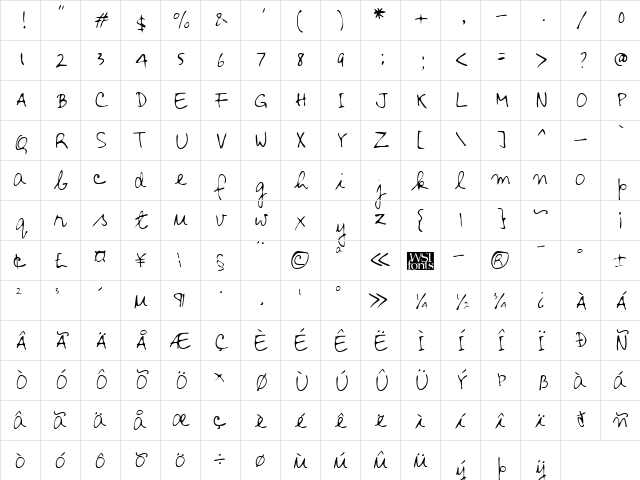
JamesHand Regular
Design Context for JamesHand
JamesHand flows with the natural rhythm of handwritten lettering, making it ideal for designs that call for warmth and personal expression.
Font Pairing: Combine JamesHand with a simple geometric sans for maximum contrast - the tension between flowing curves and clean structure is a classic typographic pairing.
Pro Tip: Use JamesHand for short runs of text - names, titles, or taglines. Extended body copy in script faces tires the eye quickly.